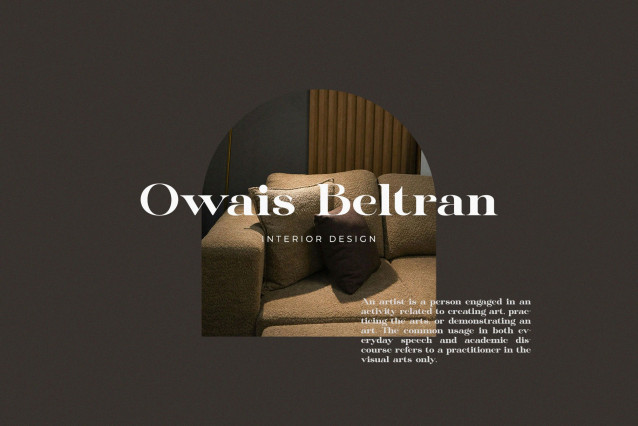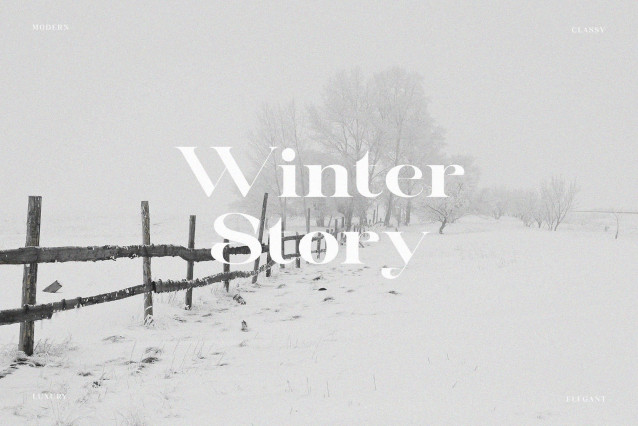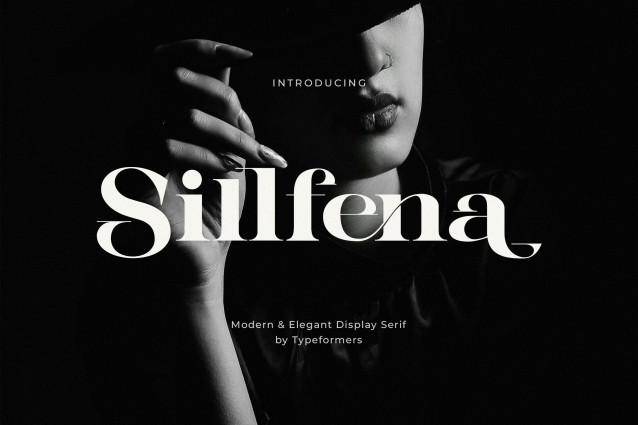
Sillfena Font
Sillfena Font is a modern and simple font, best used as a display for headings, logos, branding, magazines, product packaging and invitations.